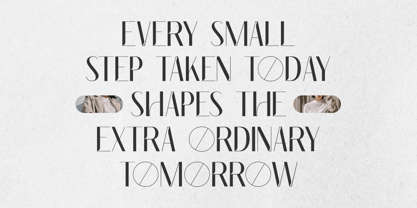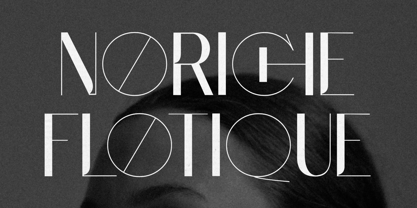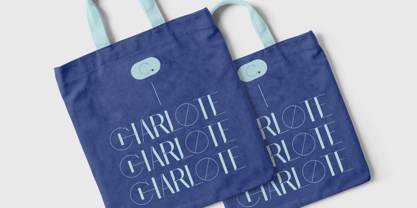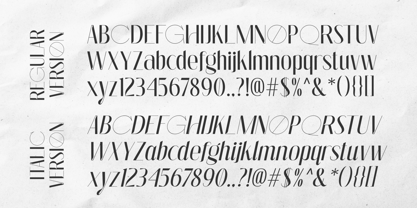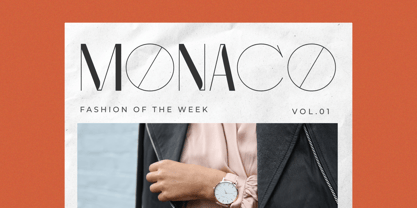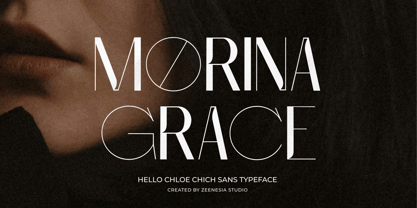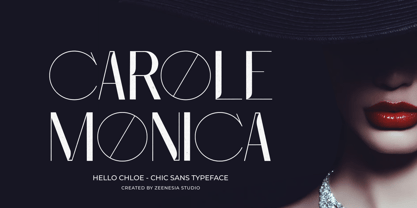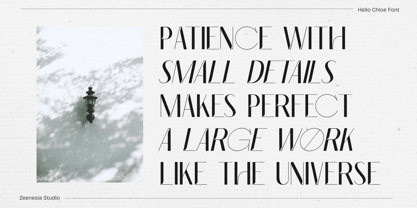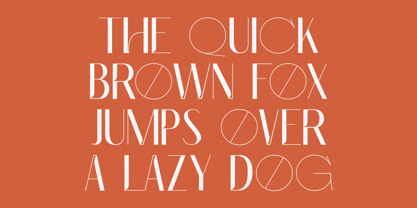
Hello Chloe
by Zeenesia Studio
The Hello Chloe Font Family was designed by Doni Purwoko and published by Zeenesia Studio. Hello Chloe contains 2 styles and family package options.
Hello Chloe is a refined sans serif font that exudes elegance in every stroke. With its thin and modern design, this font offers a minimalist yet distinctive character. The uniqueness of Hello Chloe lies in its two variations: Regular and Italic, providing versatility for various design projects.
The Regular style delivers a clean and sophisticated look, perfect for professional branding, editorial designs, and corporate visuals. Meanwhile, the Italic style adds a dynamic and expressive touch, making it ideal for projects that require a more artistic and stylish appeal.
With well-balanced letter proportions, Hello Chloe ensures excellent readability in both small and large sizes. This font is a perfect choice for logos, packaging, editorials, websites, and social media graphics. If you’re looking for a sans serif font that is simple yet full of character, Hello Chloe is the ideal addition to your design toolkit.
Designers: Doni Purwoko
Publisher: Zeenesia Studio
Foundry: Zeenesia Studio
Design Owner: Zeenesia Studio